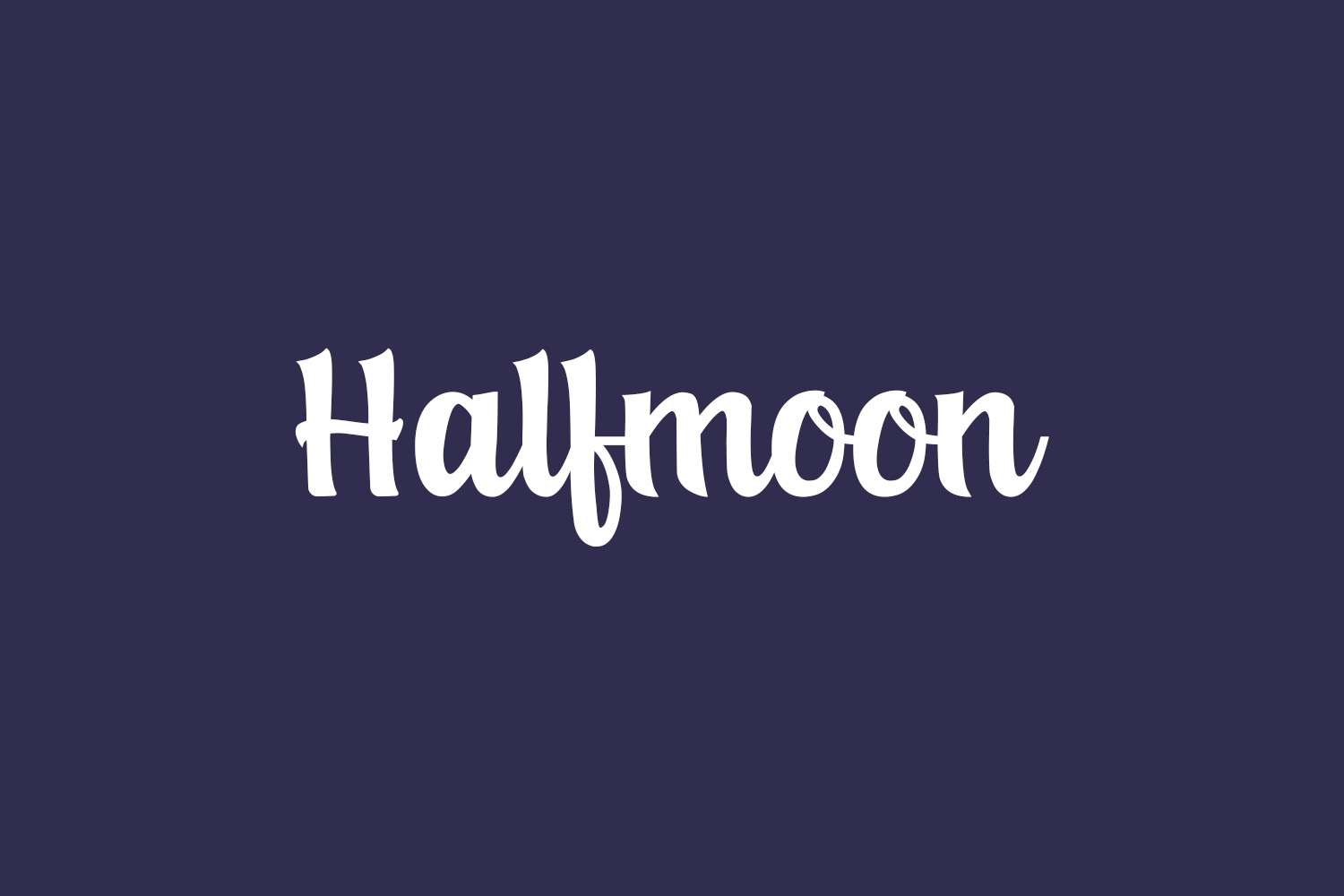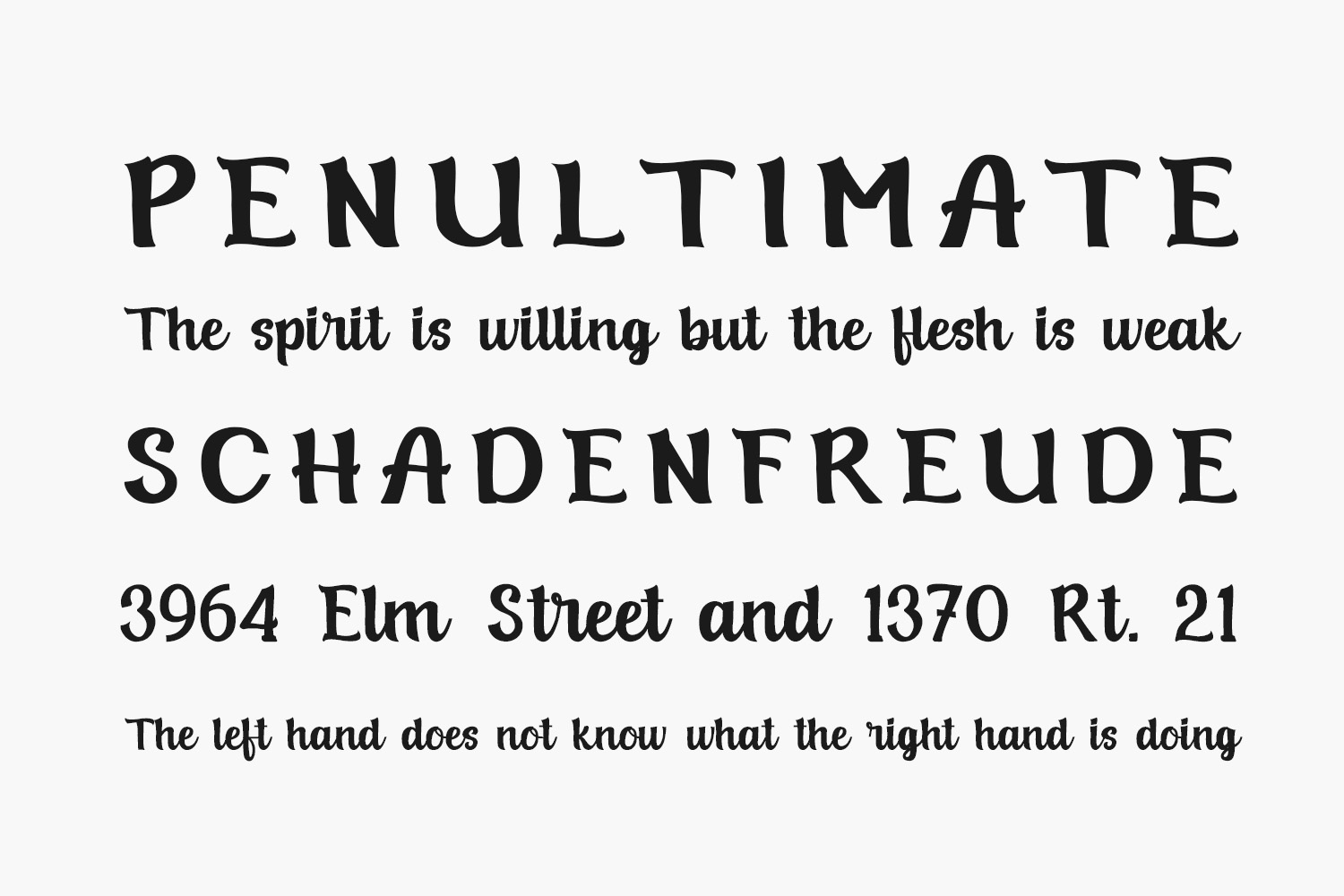
Halfmoon Free Font Family feels equally charming and elegant. It looks stunning on wedding invitations, thank you cards, quotes, greeting cards, logos, business cards and every other design which needs a handwritten touch.
Designed by Agus Rijwan Jaelani